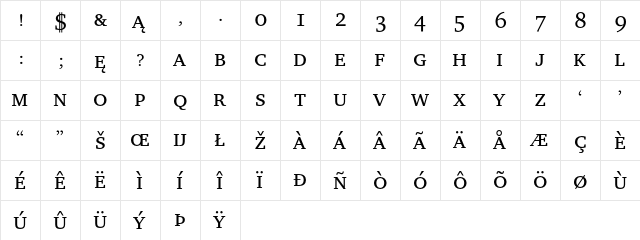
Charter Small Cap
Design Context for Charter Typeface
Charter takes a measured approach to typography — its balanced proportions and neutral character make it a reliable workhorse for both digital and print work.